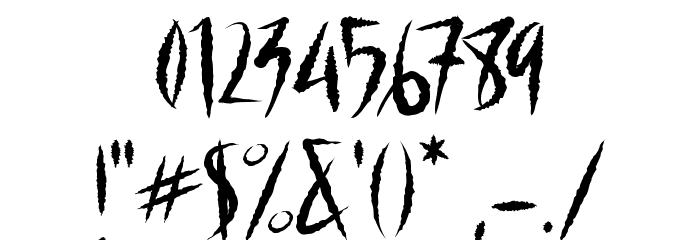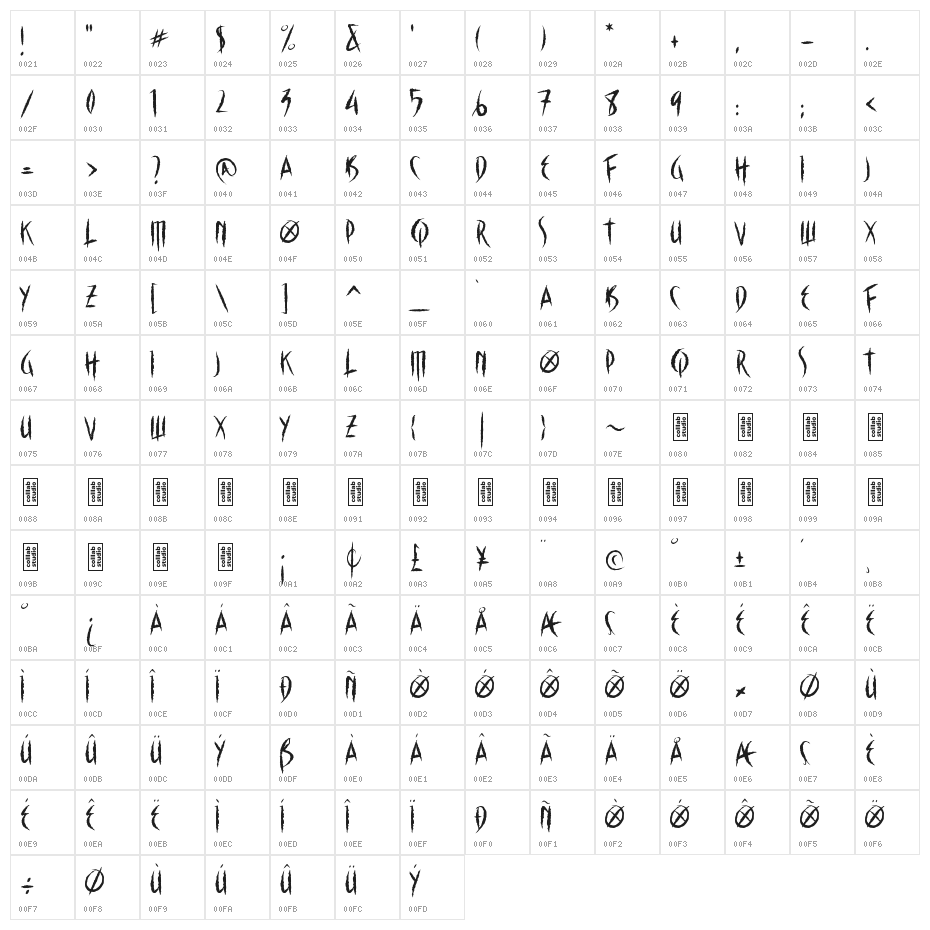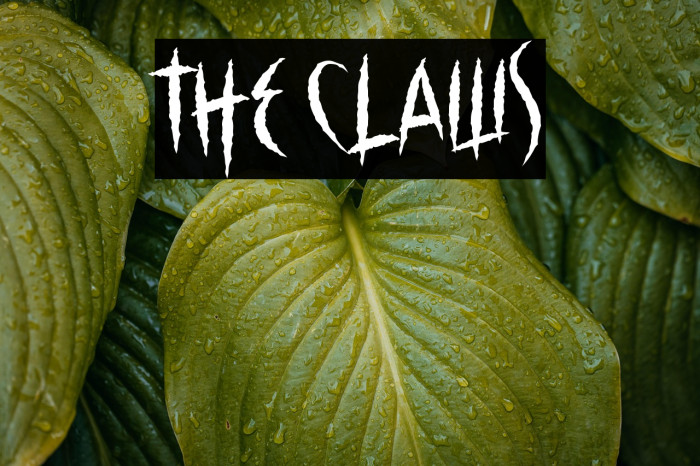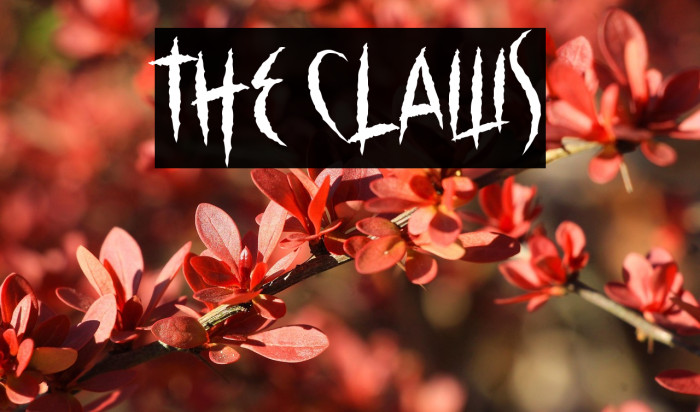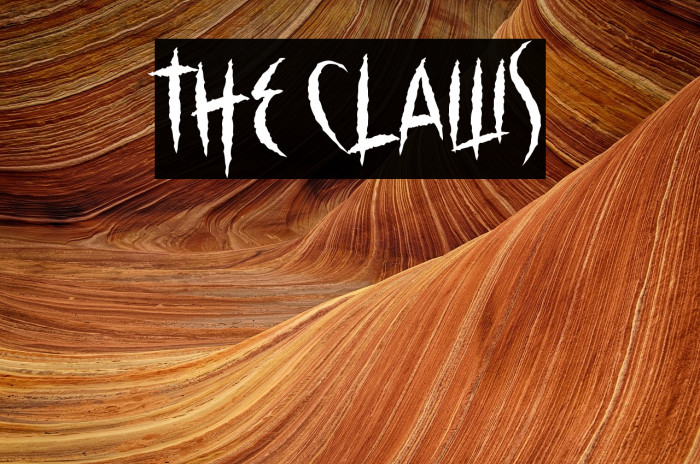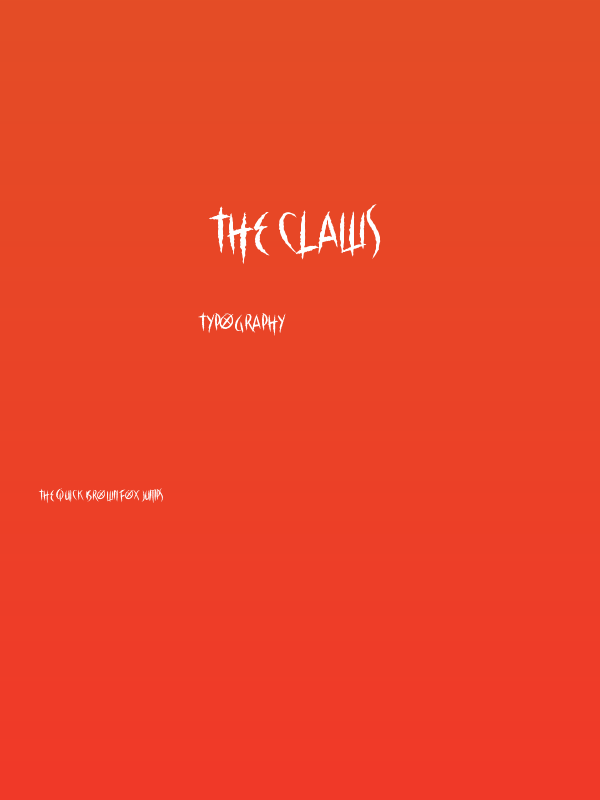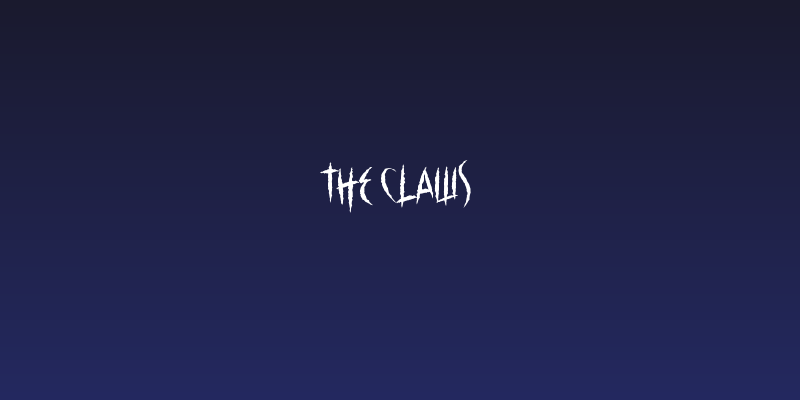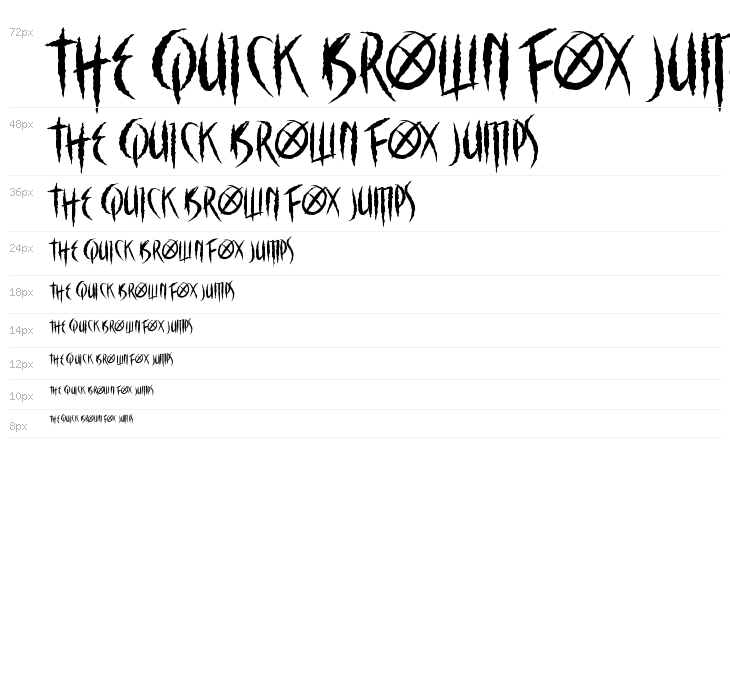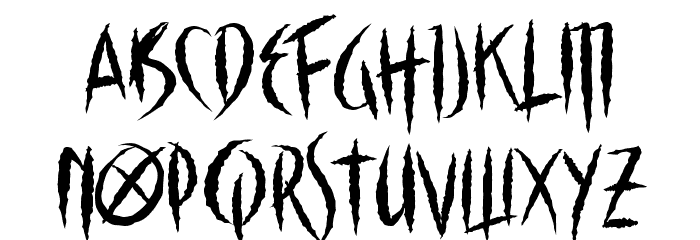
The Claws Font
The Claws Description
This font exudes a fierce and edgy aesthetic, characterized by sharp, jagged edges that mimic the appearance of claw marks. The letters are bold and dramatic, with a sense of movement and aggression. The uppercase and lowercase letters maintain a consistent style, enhancing the font's cohesive look. The numerals and special characters follow the same design principles, ensuring uniformity across all elements. This font is perfect for projects that require a bold statement, such as horror-themed designs, Halloween invitations, or any creative work that demands attention.
| Proposed Projects | Ideal for horror-themed designs, Halloween invitations, movie posters, and edgy branding. |